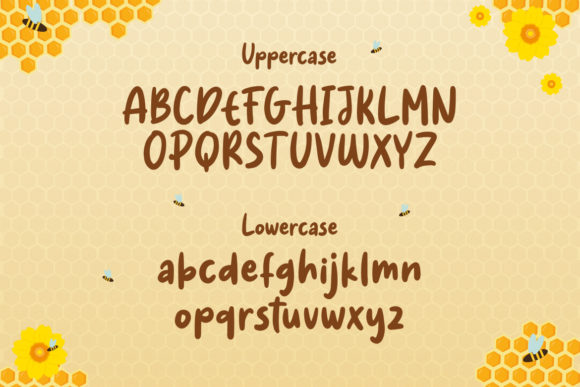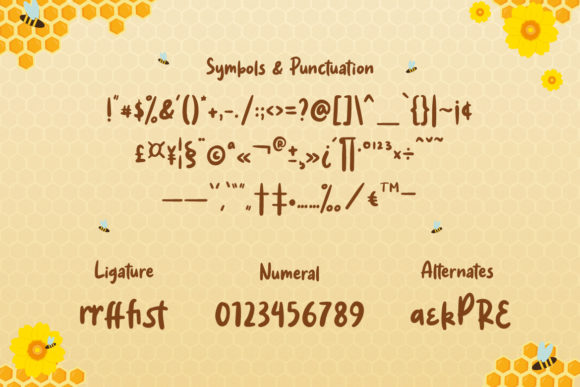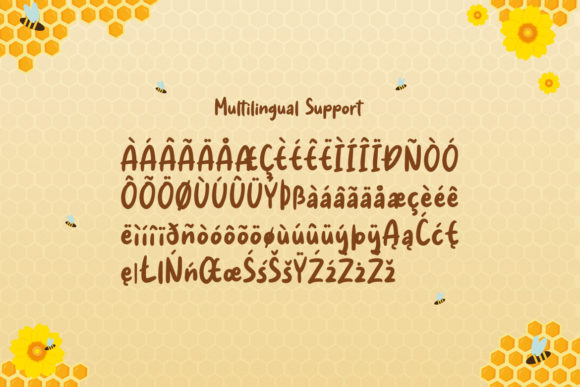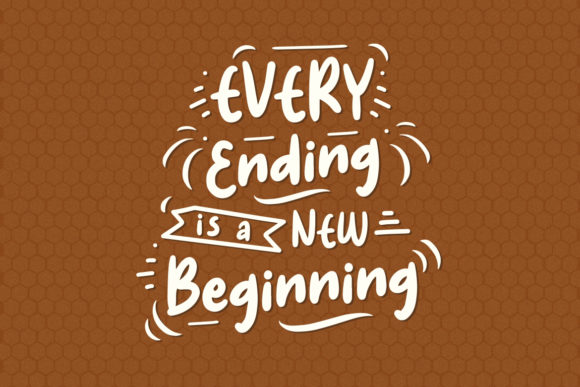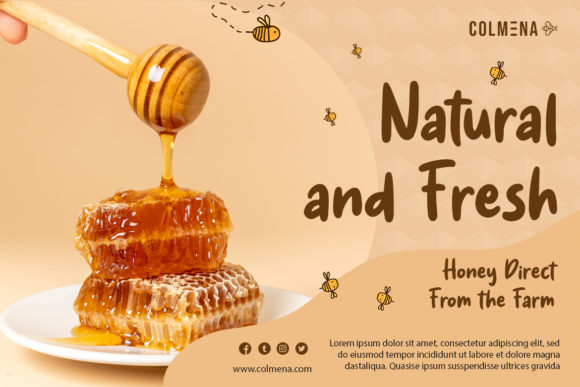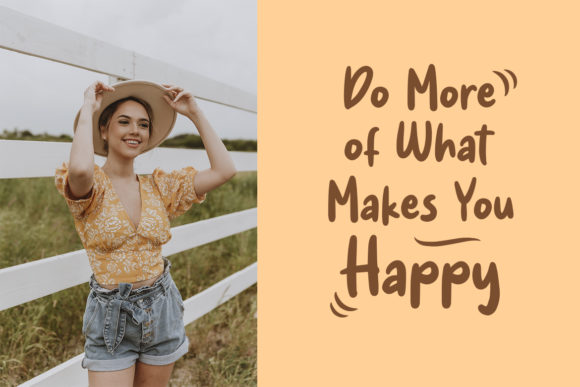
The Perfect Typography Treasure: Unlocking the Magic of Honey Jar Font
Have you ever stumbled upon a font that makes your design sparkle? For designers, finding that perfect typography treasure is a moment of pure bliss. It’s like discovering a hidden gem that elevates your entire project to the next level. And for us, that treasure is the Honey Jar Font – a bold and modern script font that’s been carefully handcrafted to become a true favorite.
This stunning font is designed to shine, whether it’s being used on busy backgrounds or as a standalone headline. Its versatility makes it a valuable addition to any designer’s toolkit. With Honey Jar Font, you’ll be able to create eye-catching designs that grab attention and leave a lasting impression. Whether you’re a seasoned pro or just starting out, this font is sure to become your go-to choice for any project that requires a touch of elegance and sophistication.
Honey Jar Font Key Features
- Font Family: Honey Jar Font is a modern, elegant script font designed to evoke a sense of warmth and sophistication.
- Unique Characteristics: Honey Jar Font features beautiful swashes and ligatures, adding a touch of elegance to any design.
Honey Jar Font Review
Overall, I think Honey Jar Font is a charming and unique font that can add a touch of whimsy to your designs. Here are some of its strengths: ✨
- Playful and friendly vibe: This font is perfect for projects that require a lighthearted and approachable tone.
- High-quality design: The font is well-crafted, with smooth lines and a clear, readable texture.
- Wide range of applications: Honey Jar Font can be used for various projects, from branding and advertising to editorial and packaging design.
- Not ideal for formal or professional projects: Due to its playful nature, Honey Jar Font may not be suitable for more serious or corporate designs.
- Limited customization options: While the font is well-designed, it may not offer as much flexibility for customization as some other fonts on the market.
Overall, I think Honey Jar Font is a great choice for designers who want to add a touch of personality to their projects. While it may not be suitable for every design scenario, its unique charm and high-quality design make it a valuable addition to any font collection.
Getting the Most Out of the Honey Jar Font
Some tips for getting the most out of the Honey Jar Font include:
1. Experiment with different font sizes and styles to create visual interest.
2. Use the Honey Jar Font in combination with other fonts to create a unique and eye-catching design.
3. Consider using the Honey Jar Font in a distressed or vintage style to add a touch of elegance.
The Honey Jar Font is commonly used in:
2. Food and beverage branding.
3. Vintage-inspired designs and advertisements.